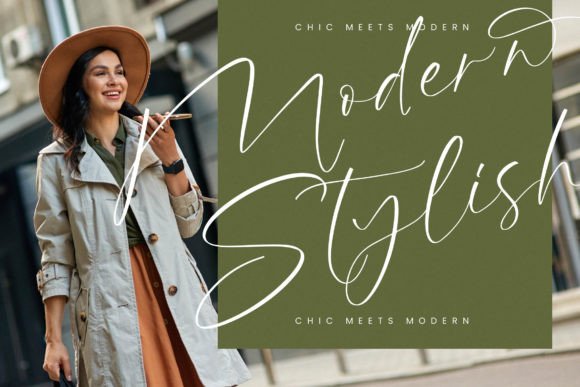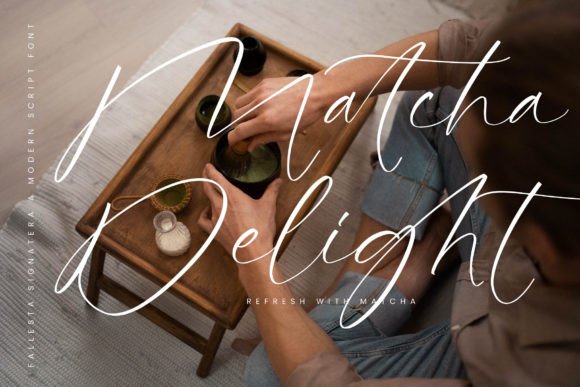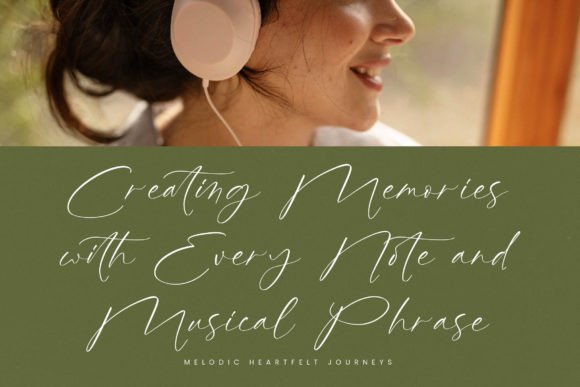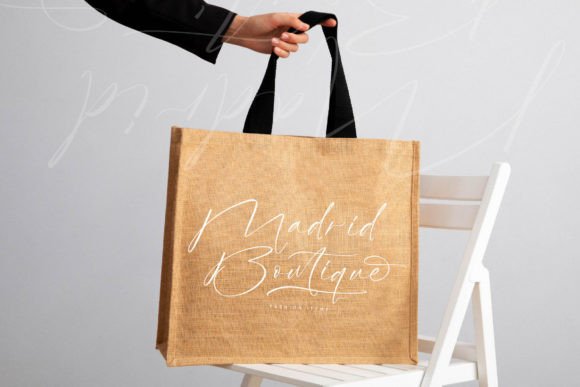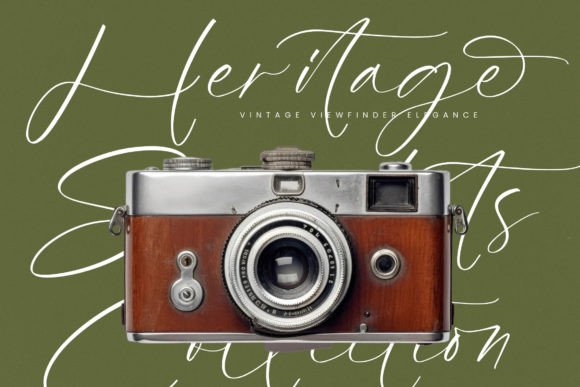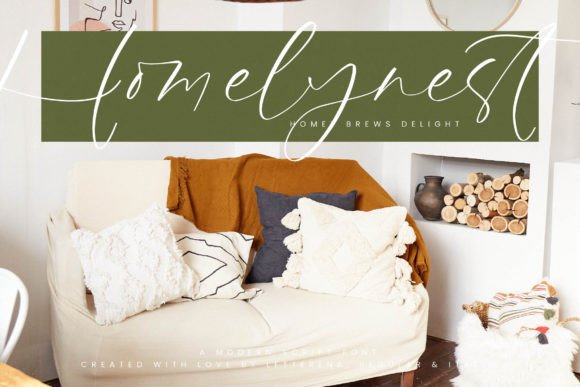
Introducing Fallesta Signatera: The Elegant Handwritten Script Font
Are you looking for a font that exudes elegance and charm? Look no further than Fallesta Signatera, a stylish handwritten script font that is perfect for adding a personal touch to your designs. With its fluid strokes and natural flow, Fallesta Signatera creates a captivating and sophisticated look that is sure to impress.
The Characteristics of Fallesta Signatera
Fallesta Signatera is a true gem in the world of typography. Its elegant and refined appearance makes it perfect for a variety of design applications, from invitations and branding to social media and more. Here are some of the key characteristics that make Fallesta Signatera stand out:
- Fluid Strokes: Fallesta Signatera features fluid strokes that give it a natural and effortless look. The strokes are smooth and connected, creating a sense of movement and flow.
- Handwritten Script: This font is a true handwritten script, with each letter carefully crafted to create a sense of personality and charm.
- Elegant and Refined: Fallesta Signatera exudes elegance and refinement, making it perfect for designs that require a sophisticated look.
Uses for Fallesta Signatera
Fallesta Signatera is a versatile font that can be used in a variety of design applications. Here are some ideas to get you started:
- Invitations: Add a personal touch to your invitations with Fallesta Signatera. Whether you’re planning a wedding, birthday party, or other special event, this font is sure to make your invitations stand out.
- Branding: Use Fallesta Signatera to create a unique and memorable brand identity. This font is perfect for logos, business cards, and other marketing materials.
- Social Media: Add a touch of elegance to your social media posts with Fallesta Signatera. Use it to create eye-catching graphics, quotes, and other engaging content.
- Crafting: Fallesta Signatera is also perfect for crafters who love to create handmade cards, scrapbook pages, and other paper crafts.
Why Choose Fallesta Signatera?
With so many fonts to choose from, why should you choose Fallesta Signatera? Here are just a few reasons:
- Unique and Creative: Fallesta Signatera is a one-of-a-kind font that will add a unique and creative touch to your designs.
- Elegant and Sophisticated: This font exudes elegance and sophistication, making it perfect for designs that require a refined look.
- Easy to Read: Despite its elegant appearance, Fallesta Signatera is easy to read, making it perfect for body text and other applications where readability is important.
- Versatile: Fallesta Signatera can be used in a variety of design applications, from invitations and branding to social media and crafting.
Tips for Using Fallesta Signatera
Here are a few tips for using Fallesta Signatera in your designs:
- Use it Sparingly: While Fallesta Signatera is a beautiful font, it can be overwhelming if used too much. Use it sparingly to create a sense of elegance and sophistication.
- Pair it with Other Fonts: Fallesta Signatera pairs well with other fonts, such as sans-serif fonts and serif fonts. Experiment with different pairings to find the one that works best for your design.
- Experiment with Colors: Fallesta Signatera looks great in a variety of colors, from bold and bright to soft and pastel. Experiment with different colors to find the one that works best for your design.
Fallesta Signatera is a stylish handwritten script font that exudes elegance and charm. Its fluid strokes and natural flow create a captivating and sophisticated look that is perfect for adding a personal touch to your designs. Whether you’re a designer, crafter, or simply someone who loves typography, Fallesta Signatera is a font that is sure to impress.